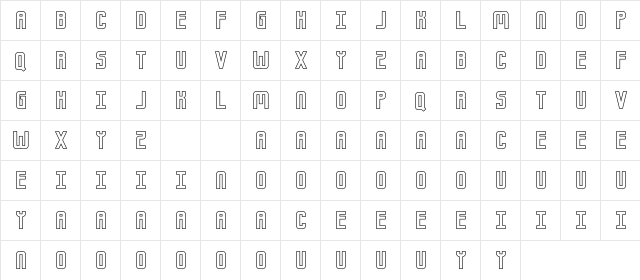
Gipfel Outline
| Designer | Aaron Bradley |
Design Context for Gipfel Typeface
Gipfel brings ornamental detail and strong personality to headlines and identities, where visual impact matters more than quiet functionality.
Font Pairing: Pair with a clean neutral sans-serif for body copy to let Gipfel's character lead without overwhelming the composition.
Pro Tip: Treat Gipfel as the centrepiece of your typographic hierarchy. One strong heading set in a decorative face can carry an entire layout.